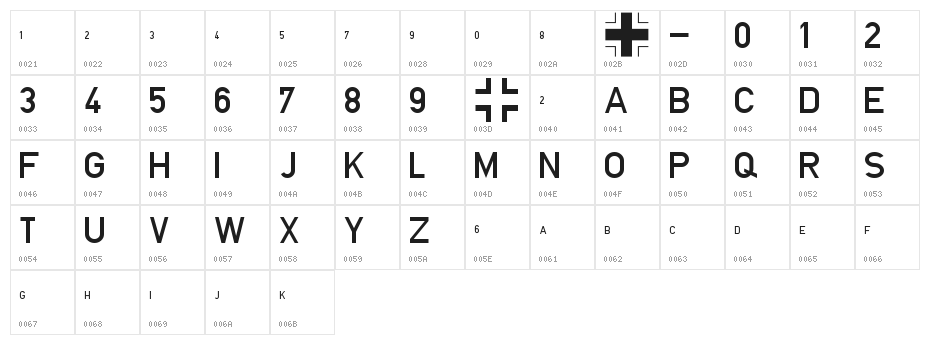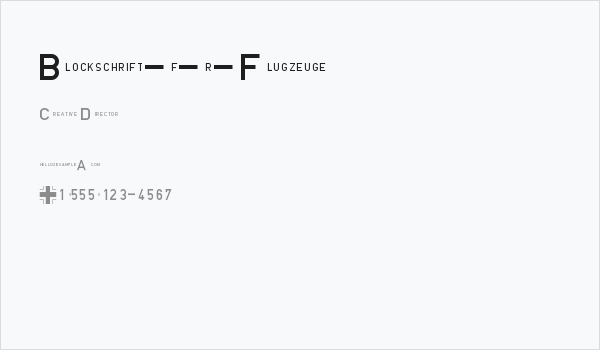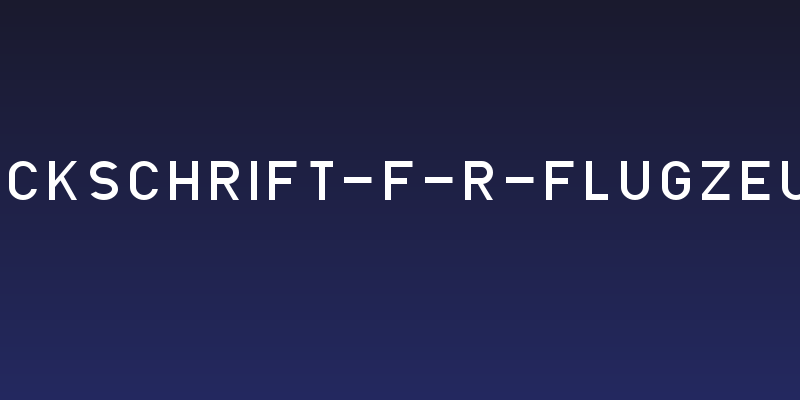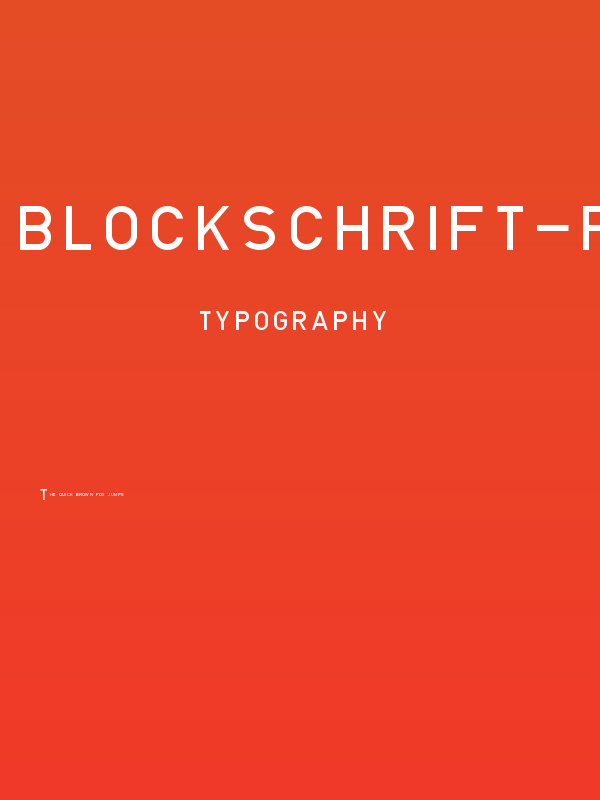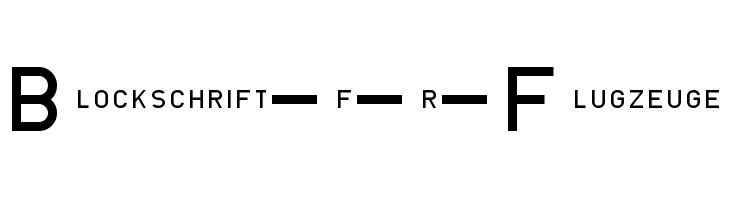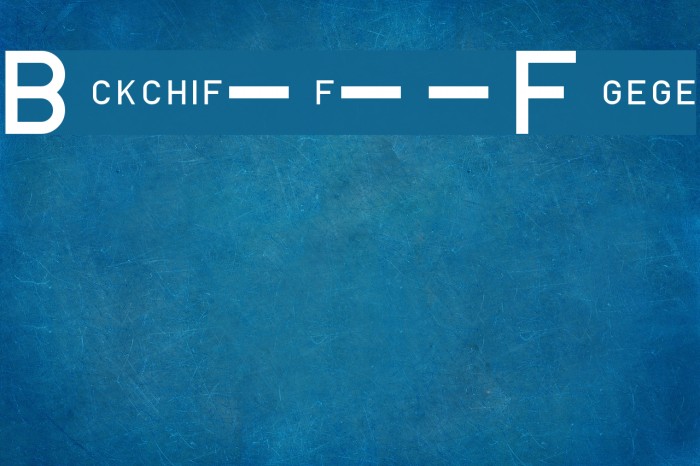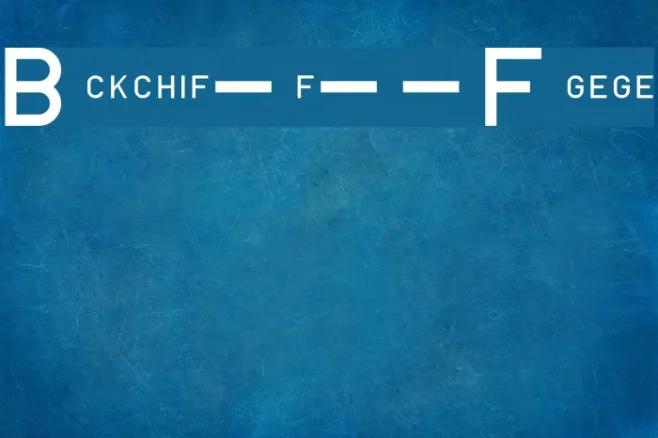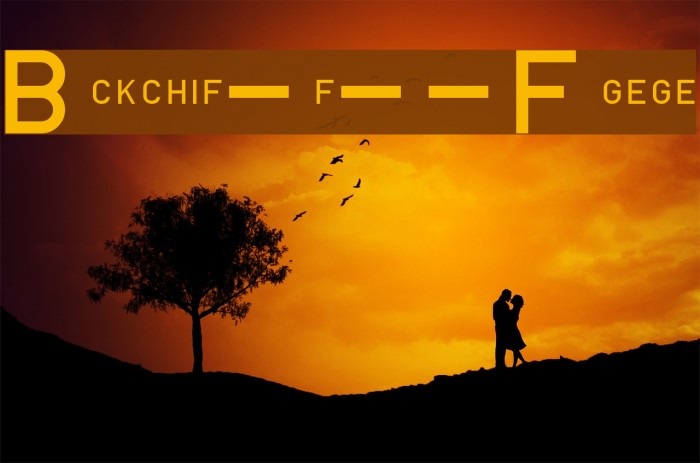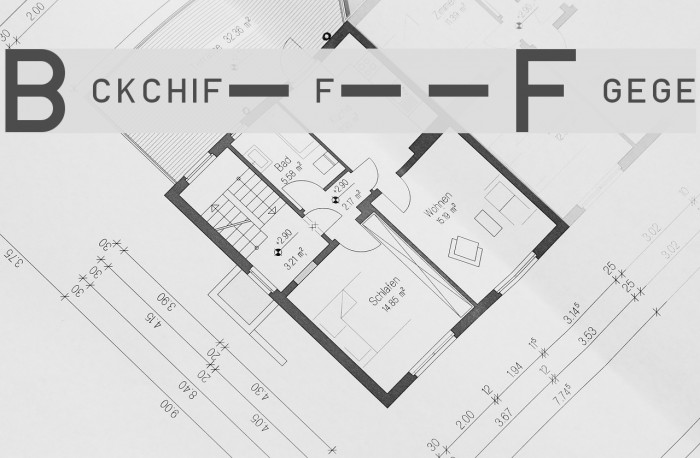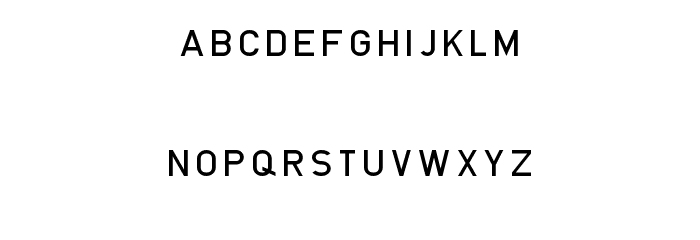
Blockschrift-f-r-Flugzeuge Font
Blockschrift-f-r-Flugzeuge Description
This font features a clean, geometric design with uniform stroke widths, making it highly legible and suitable for various applications. The characters are bold and evenly spaced, providing a modern and professional appearance. The uppercase letters are particularly striking, with a strong presence that commands attention. The numerals are clear and distinct, ensuring readability in both digital and print formats. Overall, this font's simplicity and clarity make it versatile for a wide range of uses.
| Use Case | Headlines, Signage, Branding |
| Proposed Projects | Ideal for signage, branding, digital interfaces, and print media where clarity and professionalism are key. |